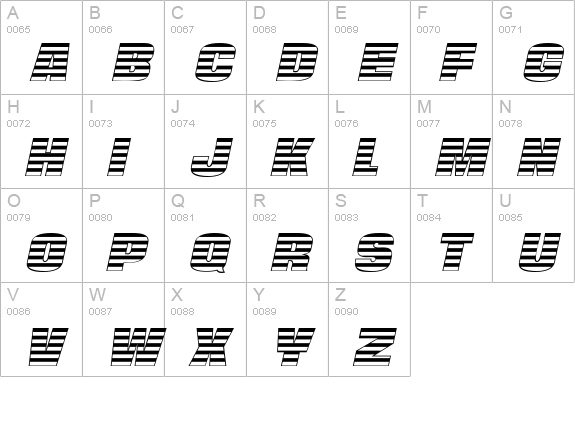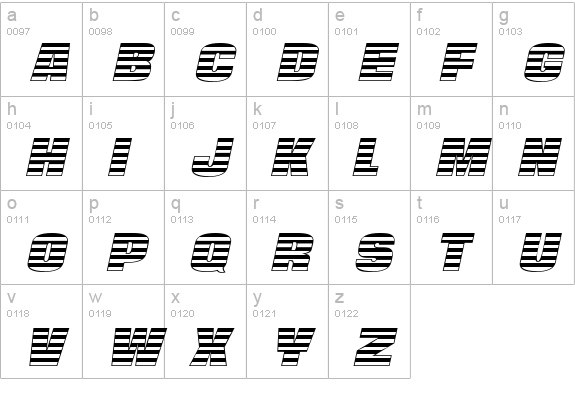
StriperCaps Italic Font Details
StriperCaps Italic is a distinctive, italic variant in the StriperCaps typeface family \xE2\x80\x94 well suited to design and typography projects.
Introducing StriperCaps Italic font - a stylish and modern typeface that exudes elegance and sophistication. With its sleek lines and unique design, StriperCaps Italic is perfect for adding a touch of class to your projects. Whether you're creating branding materials, social media graphics, or invitations, this font is sure to make a statement. And the best part? StriperCaps Italic is completely free for personal and commercial use! You can download this stunning font at FontsMarket.com and start using it in your designs today. Don't miss out on the opportunity to elevate your creations with the beauty and versatility of StriperCaps Italic font.